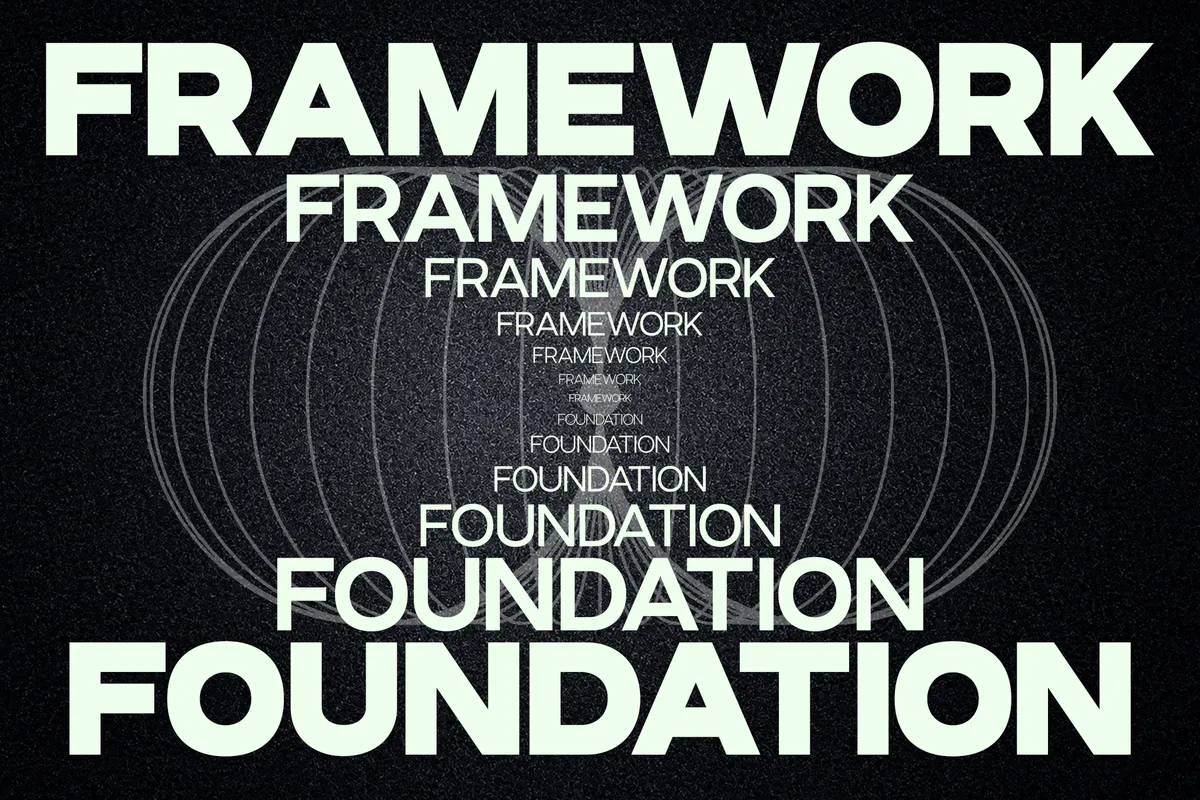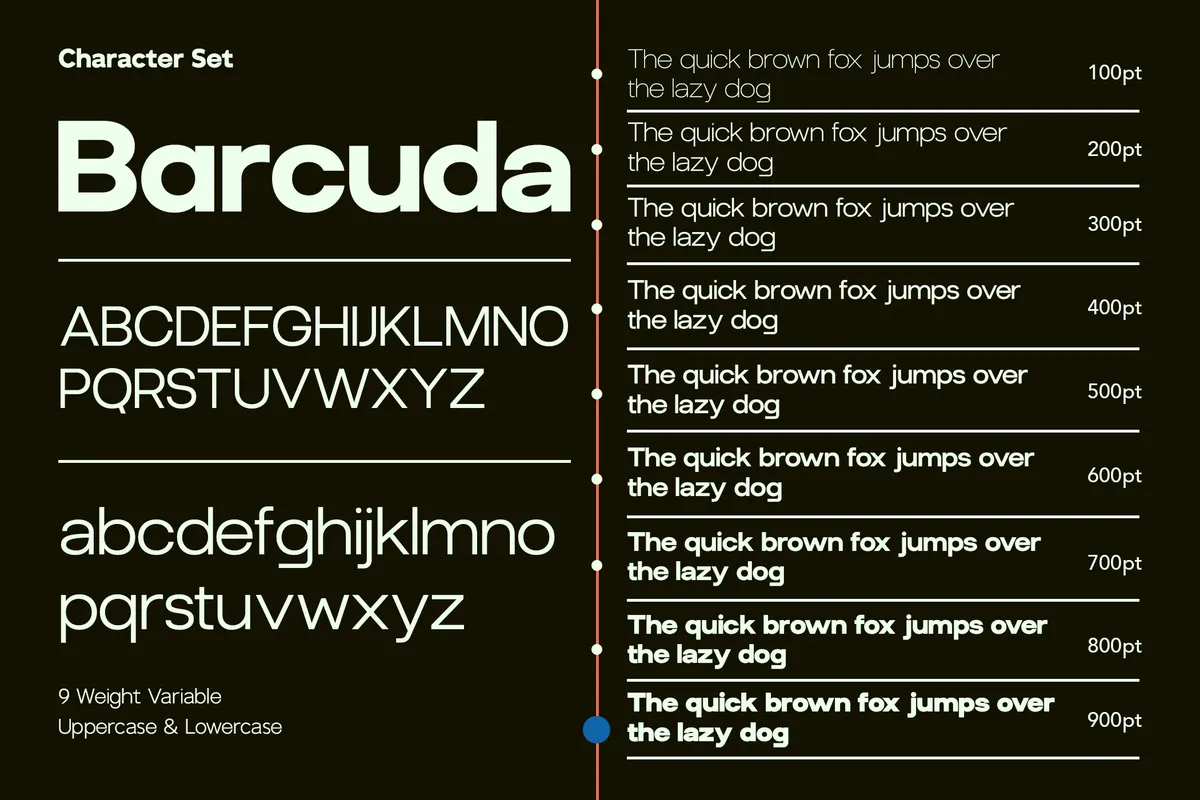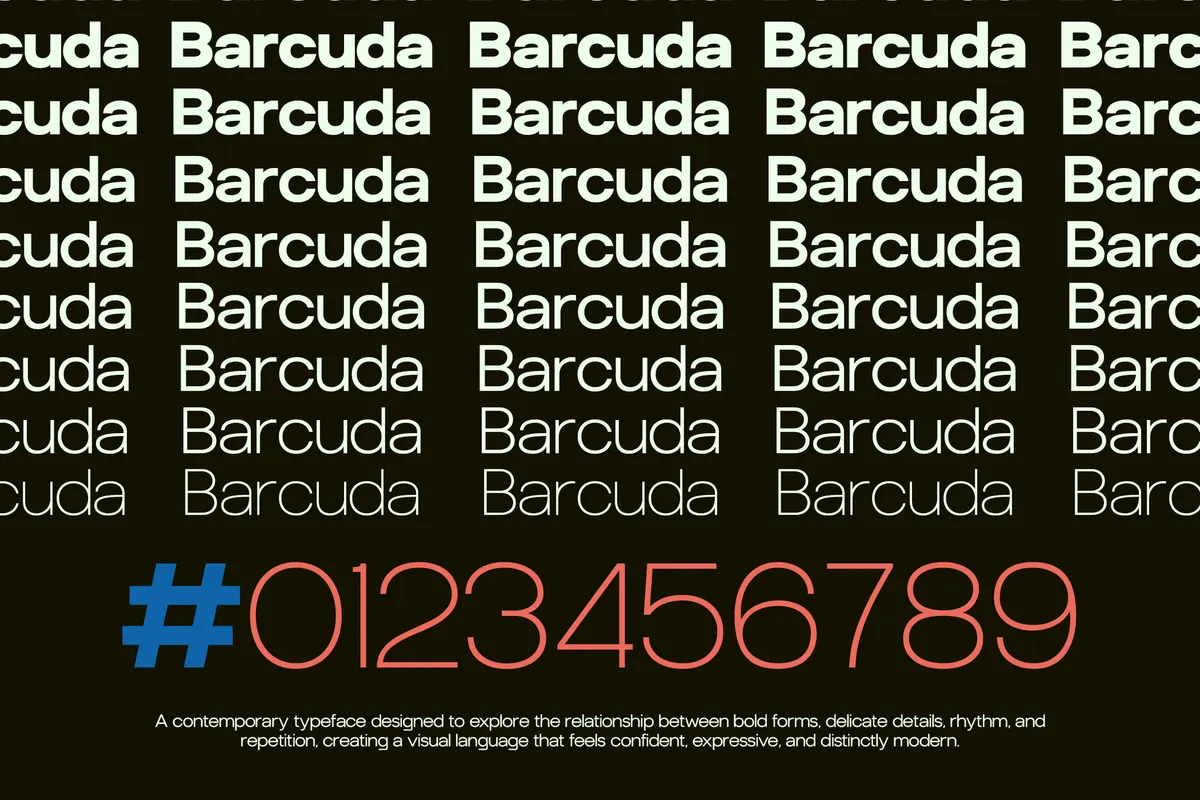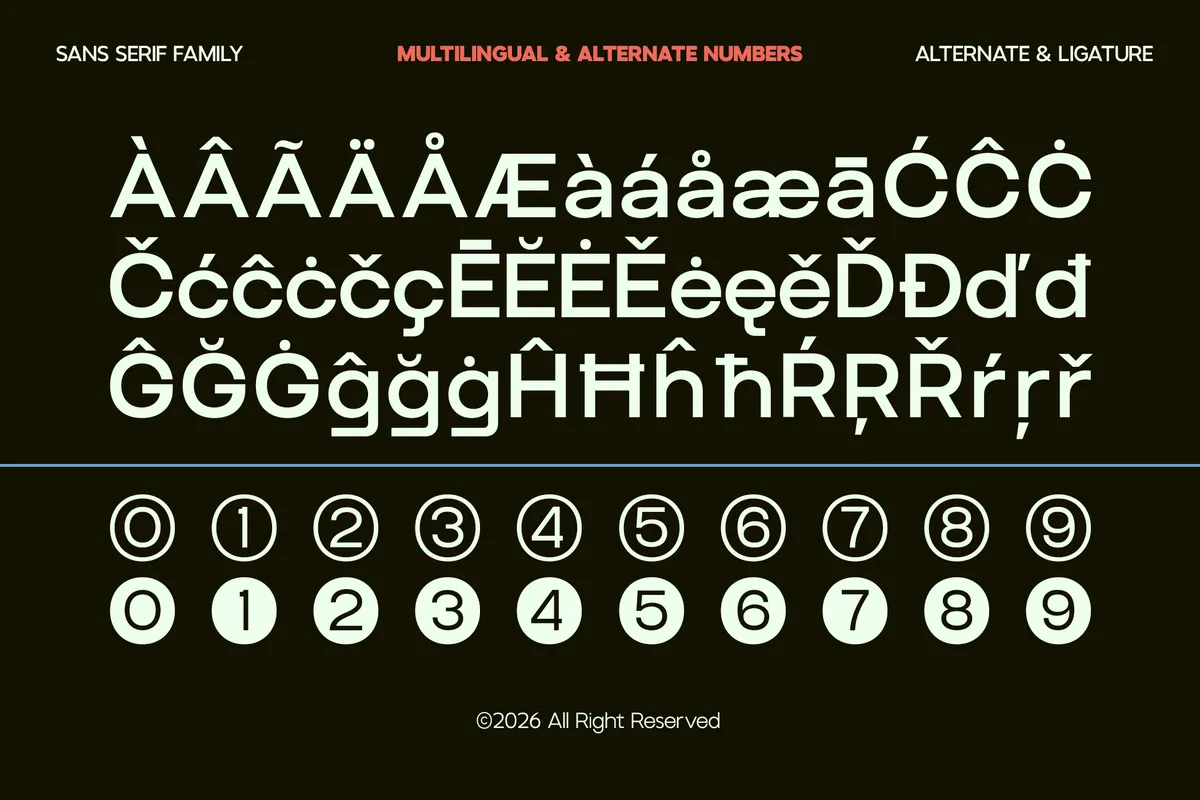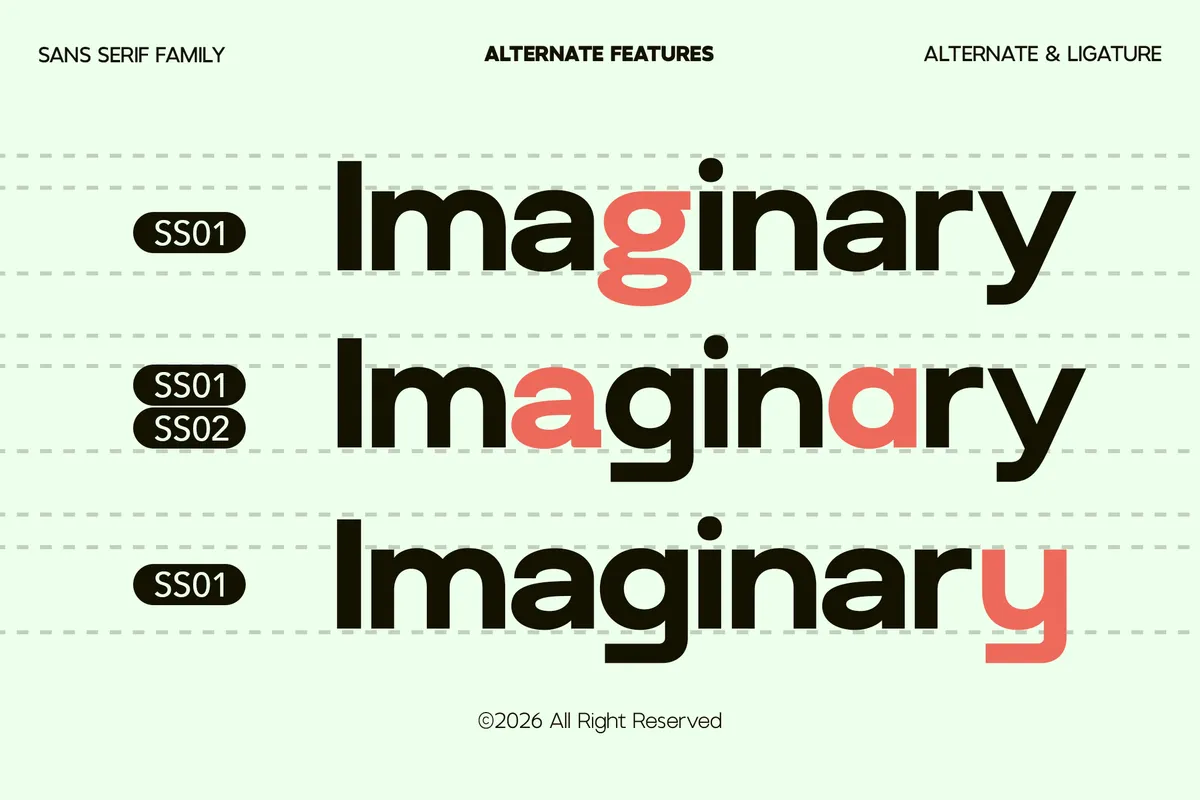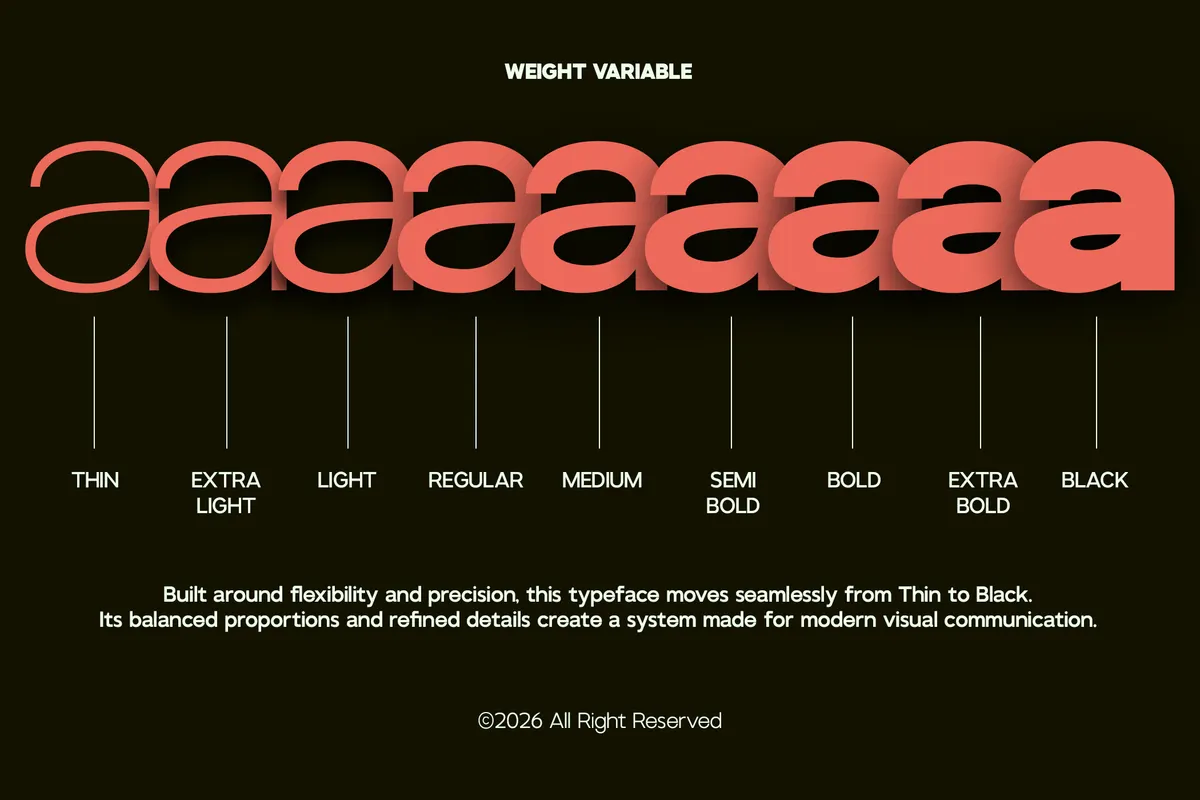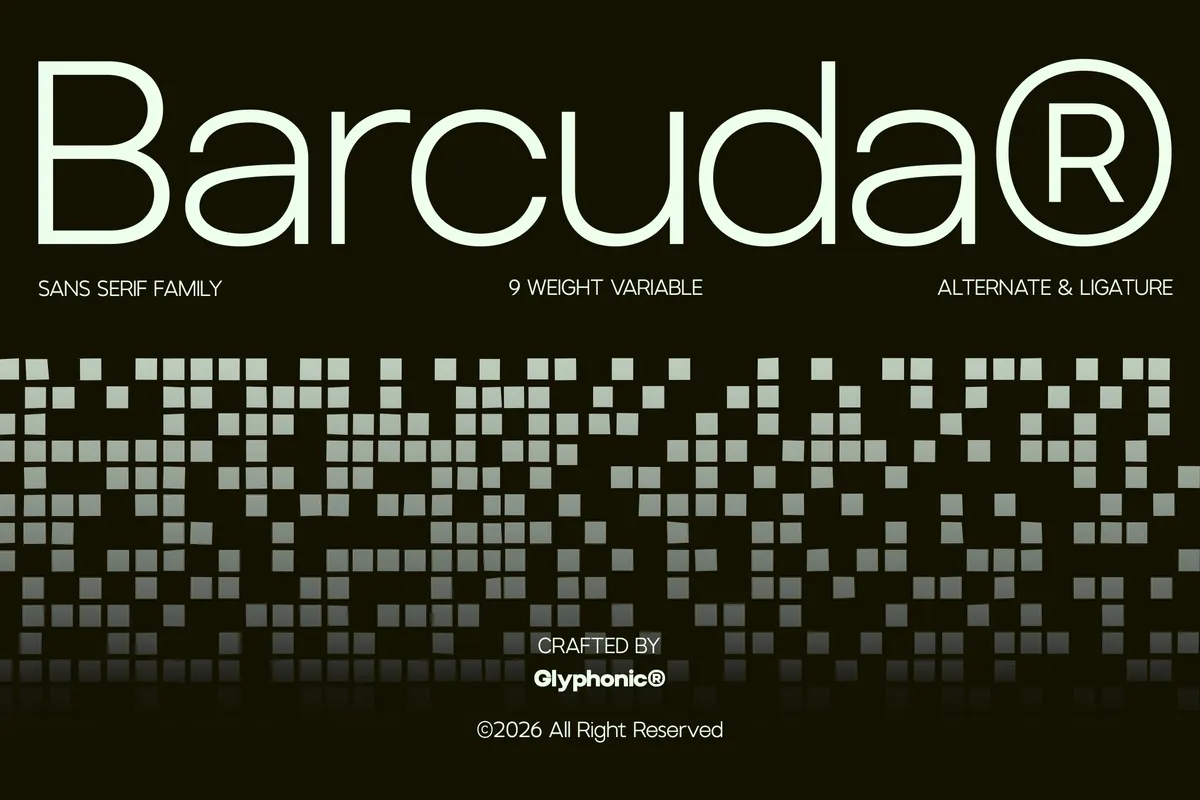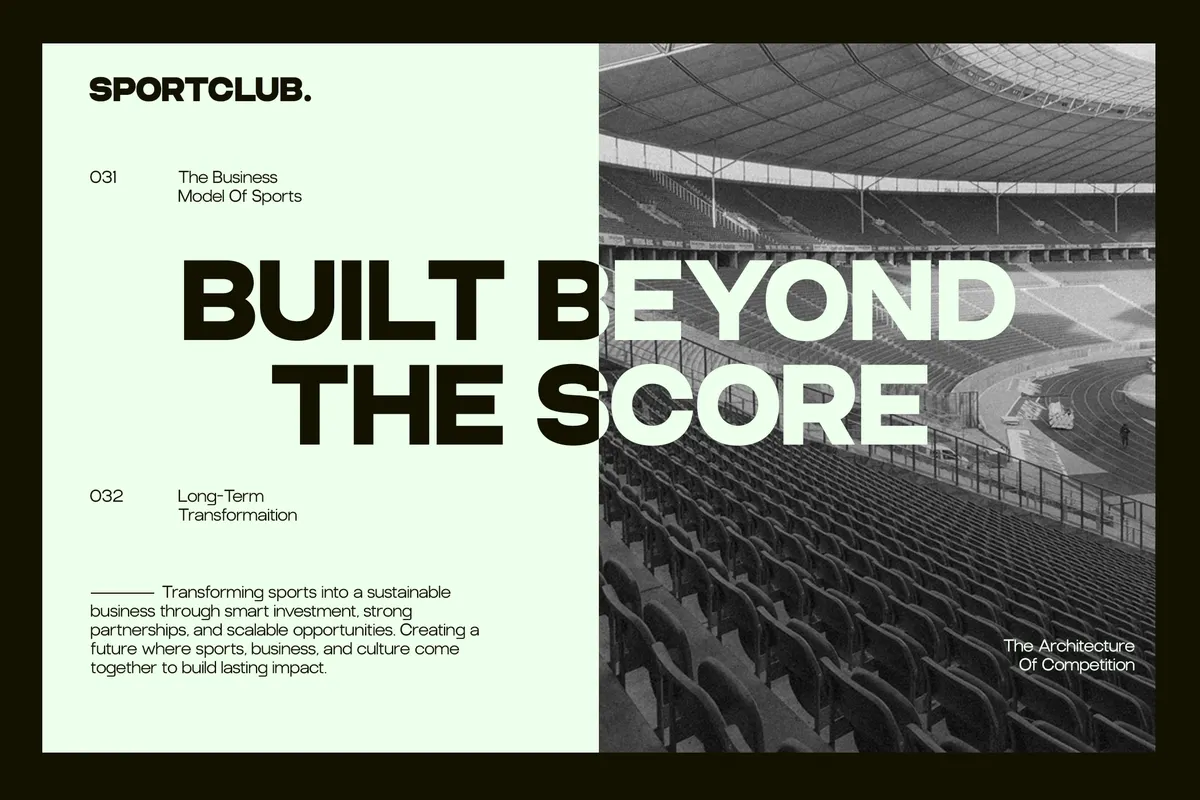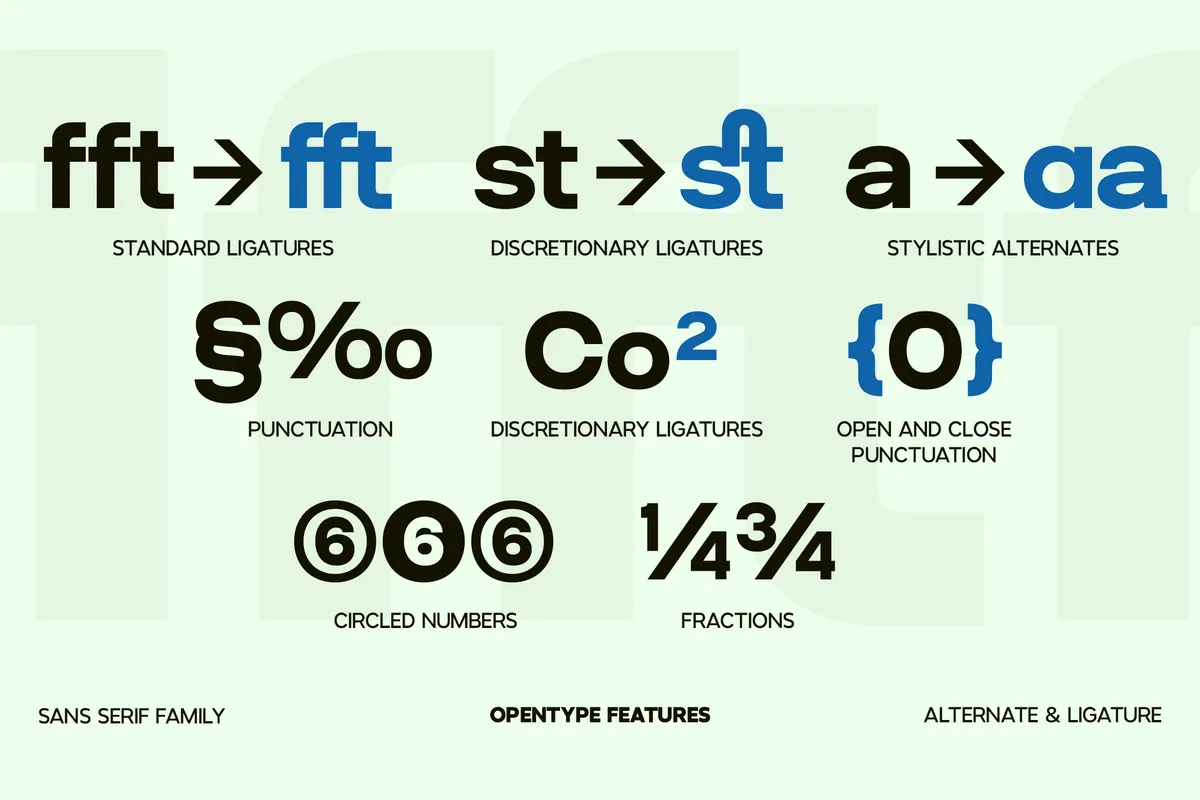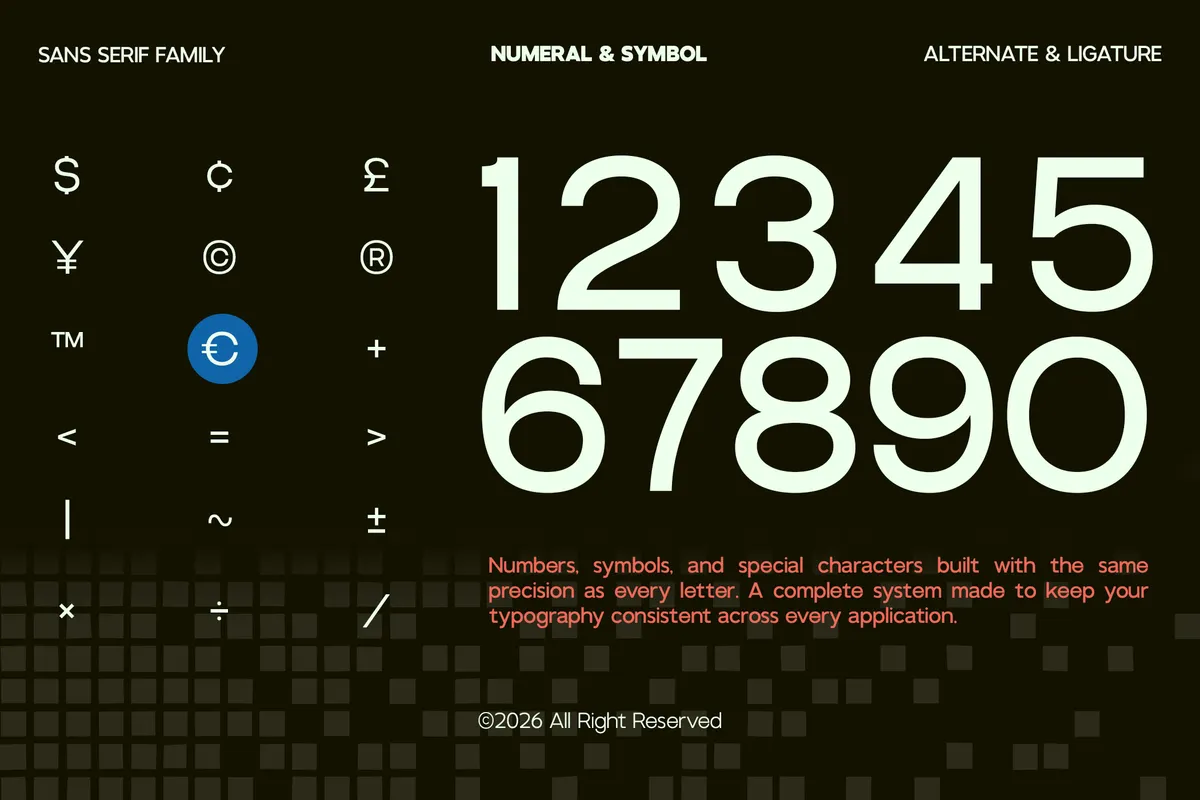
GC Barcuda - Geometric Sans Serif Font
GC Barcuda builds a clean geometric sans with confident, contemporary proportions, closer to a global brand system than a general display face. Nine weights move from a hairline Thin through a solid Black, and a variable font covers that same range in a single file. Eight letters, R, K, k, Q, G, a, g, and y, swap in stylistic alternate forms, all reachable through the OpenType panel.
Use it for editorial headlines, interface typography, branding, packaging, and contemporary visual identities.
- Uppercase & lowercase;
- Numerals, punctuation & symbols;
- 9 weights: Thin, ExtraLight, Light, Regular, Medium, SemiBold, Bold, ExtraBold, Black;
- Variable font covering the full weight range;
- 13 ligatures, stylistic alternates on select characters, fractions, superscript figures;